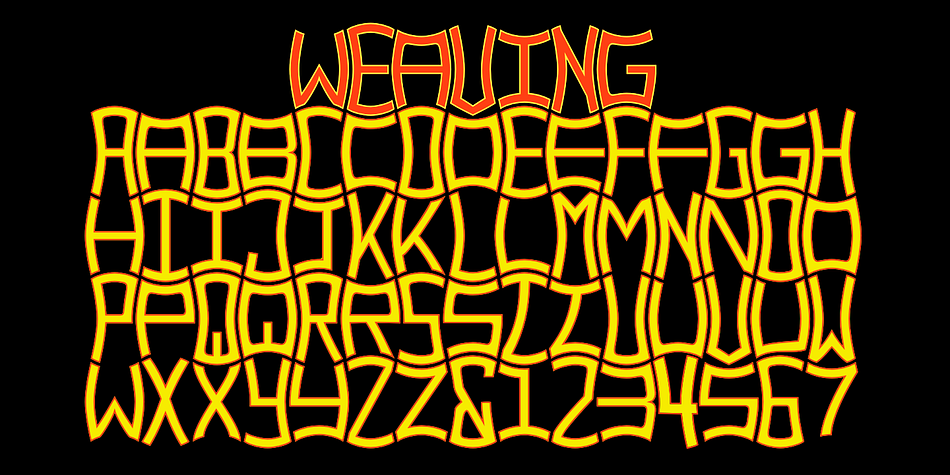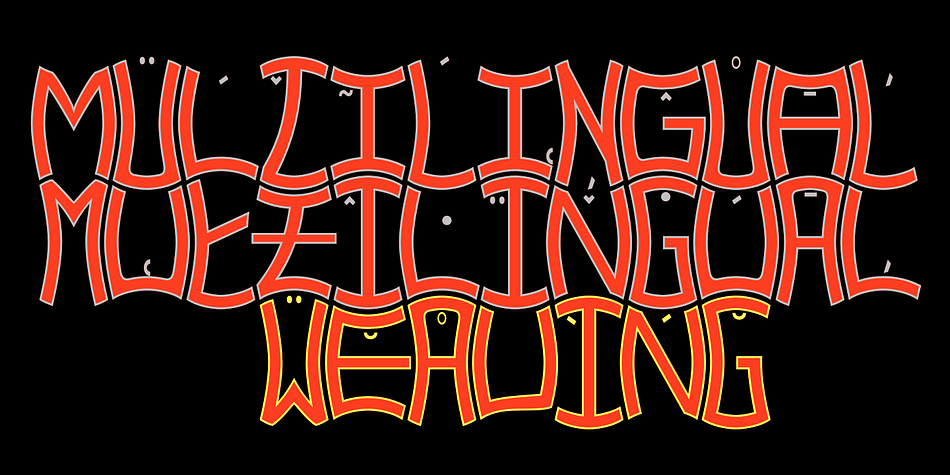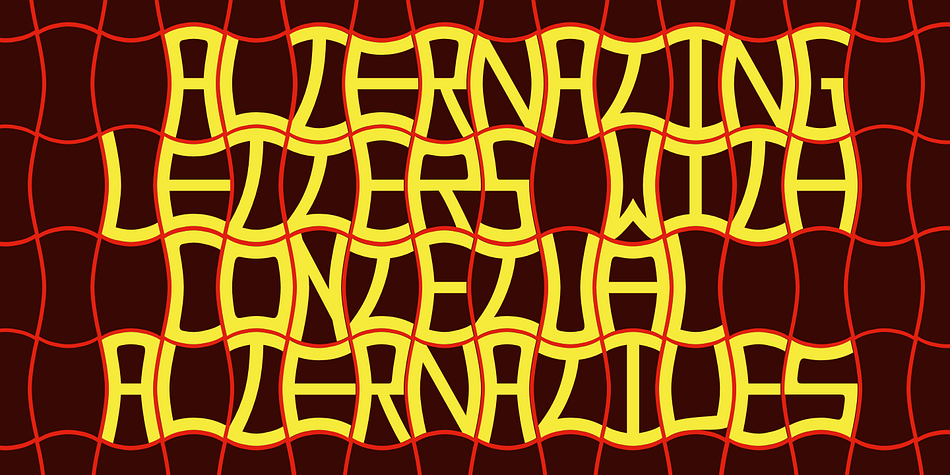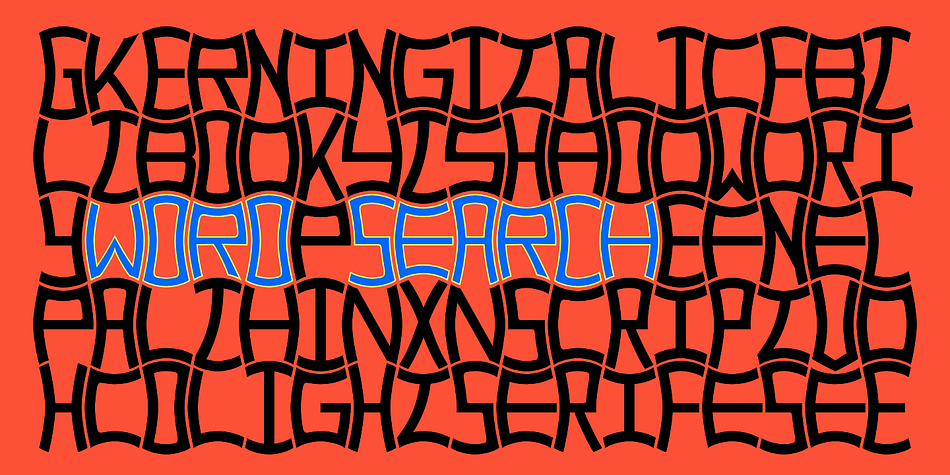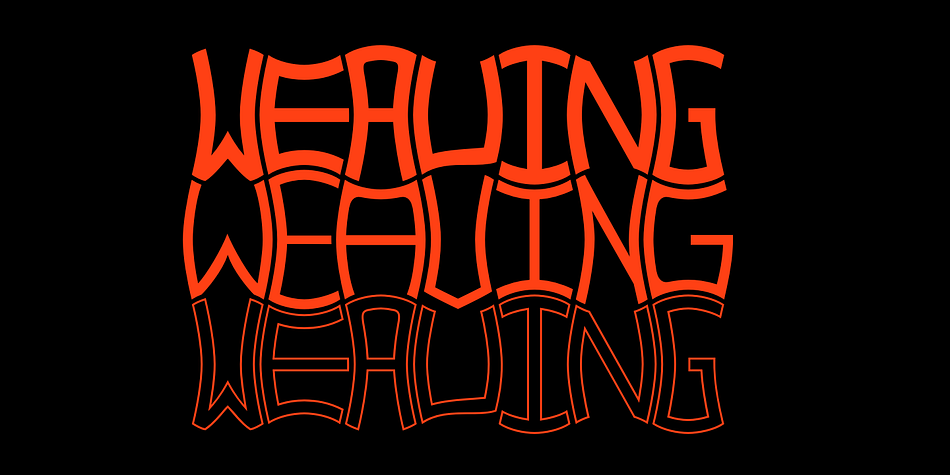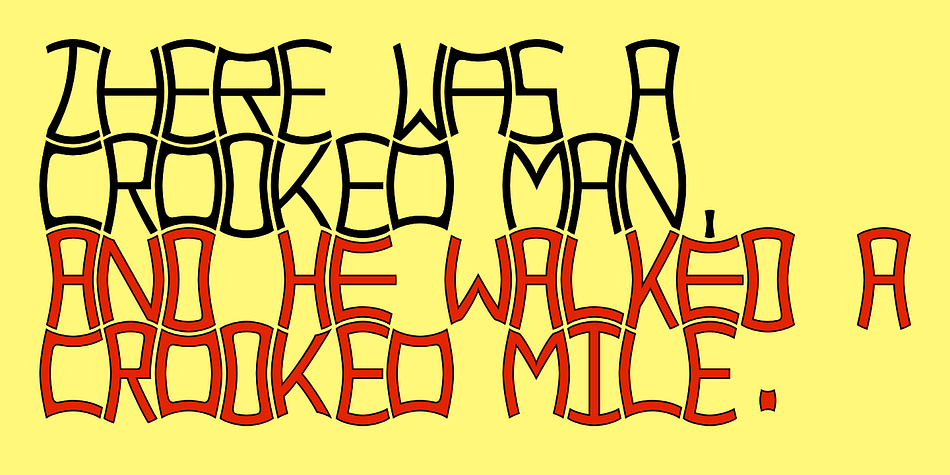
Weaving
Designed by Robert Schenk, Weaving is a novelty font family. This typeface has three styles and was published by Ingrimayne Type.
Weaving is a family in which the letters fit together so that wavy lines separate them both horizontally and vertically. It creates this effect by alternating letters on upper-case keys with those on lower-case letters and this alternating is done automatically in applications that support the OpenType feature of contextual alternatives (calt). (The upper-case can be used alone but it unlikely that the lower-case characters could be used by themselves.)
The family is a thinner and condensed version of the typeface Woven, but in condensing it, the tessellation properties that a were in Woven are lost. It is a decorative display face but because there are few typefaces similar to it, it is hard to predict what uses it may have. Be creative!